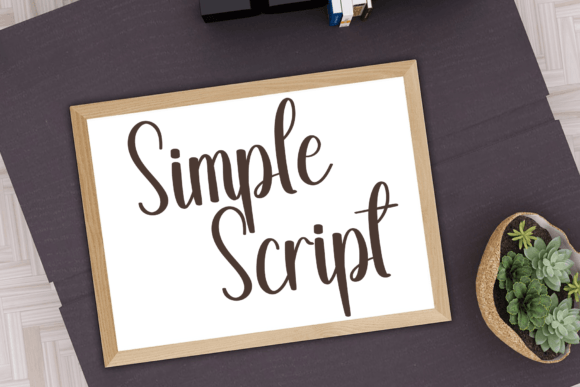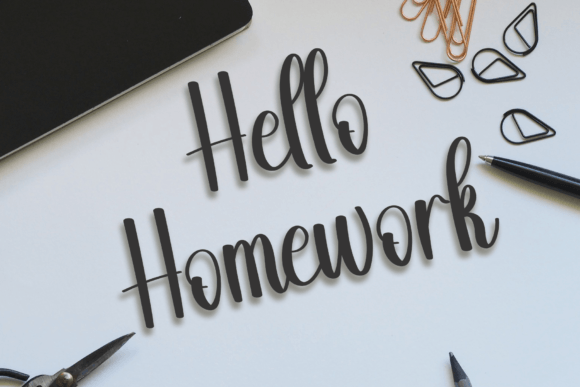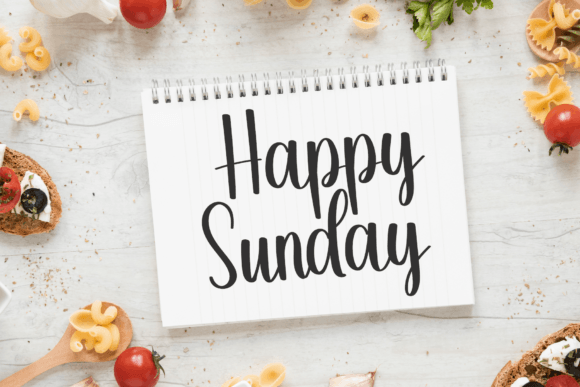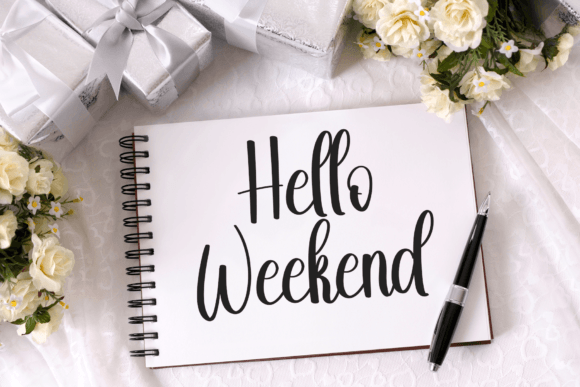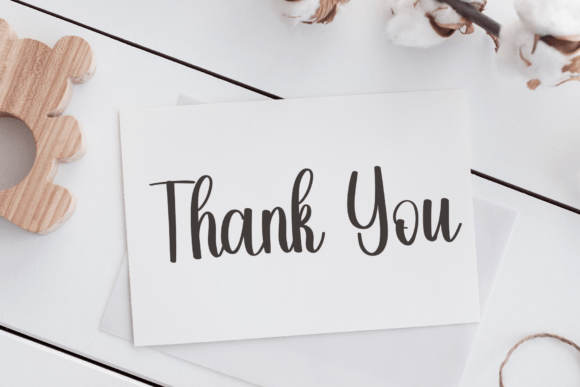
Introducing Briefing Font: Elevate Your Designs with a Fresh and Beautiful Handwritten Style
In the world of design, fonts play a crucial role in conveying messages, evoking emotions, and creating a lasting impression. For designers, crafters, and businesses looking to make a statement, Briefing Font is an excellent choice. This fresh and beautiful handwritten font is perfect for various design purposes, including YouTube banners, cover logo mockups, wedding invitations, ID cards, flyers, and crafts.
What Makes Briefing Font Stand Out?
Briefing Font is more than just a pretty face; it’s a versatile and unique typeface that can elevate your designs to the next level. Here are some key features that make Briefing Font an excellent addition to your design toolkit:
• Fresh and Beautiful Handwritten Style: Briefing Font boasts a modern, elegant, and flowing handwritten style that’s perfect for creating visually appealing designs.
• Simple and Unique: This font’s simplicity is one of its greatest strengths. Its clean lines and subtle curves make it easy to read and versatile enough to be used in various design contexts.
• Highly Versatile: Whether you’re designing for digital or print, Briefing Font adapts seamlessly to different mediums and applications.
Briefing Font is an excellent choice for a wide range of design projects, including:
• YouTube Banners: Create eye-catching banners that showcase your brand’s personality and style.
• Cover Logo Mockups: Elevate your logo designs with a sophisticated and modern font that grabs attention.
• Wedding Invitations: Add a touch of elegance and romance to your wedding invitations with Briefing Font.
• ID Cards: Create professional and stylish ID cards that make a great impression.
• Flyers: Design engaging and effective flyers that promote your business or event.
• Crafts: Use Briefing Font to add a personal touch to your craft projects, such as handmade cards, gift tags, and more.
How Briefing Font Can Benefit Your Business
By incorporating Briefing Font into your designs, you can experience several benefits that can help take your business to the next level:
• Enhanced Brand Image: A beautiful and unique font like Briefing can help you establish a strong brand identity and create a lasting impression on your audience.
• Increased Engagement: The visually appealing design made possible by Briefing Font can lead to higher engagement rates, whether it’s for a marketing campaign or a social media post.
• Competitive Edge: Stand out from the competition with a distinctive font that sets your designs apart.
Tips for Using Briefing Font Effectively
To get the most out of Briefing Font, here are some tips to keep in mind:
• Pair it with Other Fonts: Experiment with different font combinations to create a unique and harmonious design.
• Adjust Font Sizes and Styles: Play with font sizes, styles, and colors to add visual interest and hierarchy to your design.
• Use it Consistently: Consistency is key to building a strong brand identity. Use Briefing Font across your designs to create a cohesive look.
In conclusion, Briefing Font is an excellent addition to any designer’s toolkit. Its fresh and beautiful handwritten style, simplicity, and versatility make it perfect for a wide range of design applications. By incorporating Briefing Font into your designs, you can elevate your brand image, increase engagement, and gain a competitive edge. So why wait? Download Briefing Font today and take your designs to the next level!